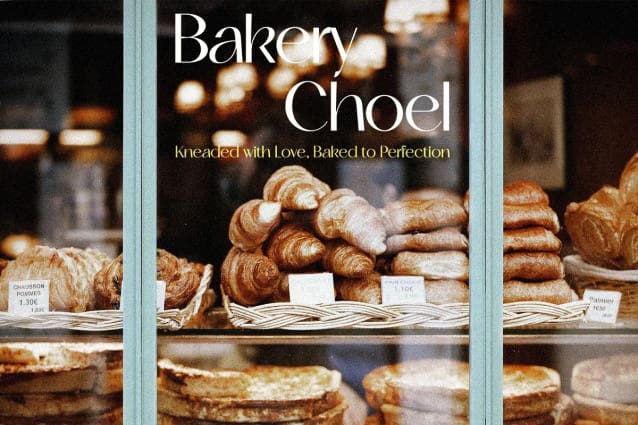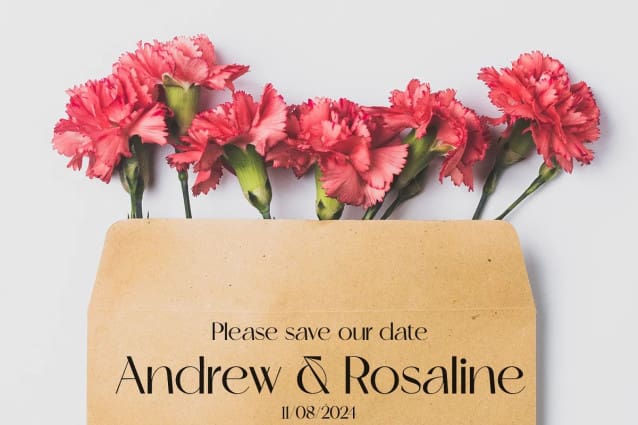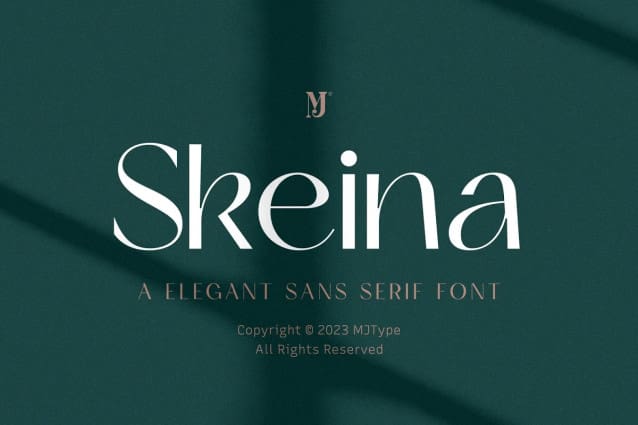
Skeina Font
Skeina Font is an elegant sans serif font that fuses contemporary flair with classic undertones. Designed to offer versatility and sophistication, this typeface can adapt to a multitude of projects, bringing clarity and style wherever it’s applied.